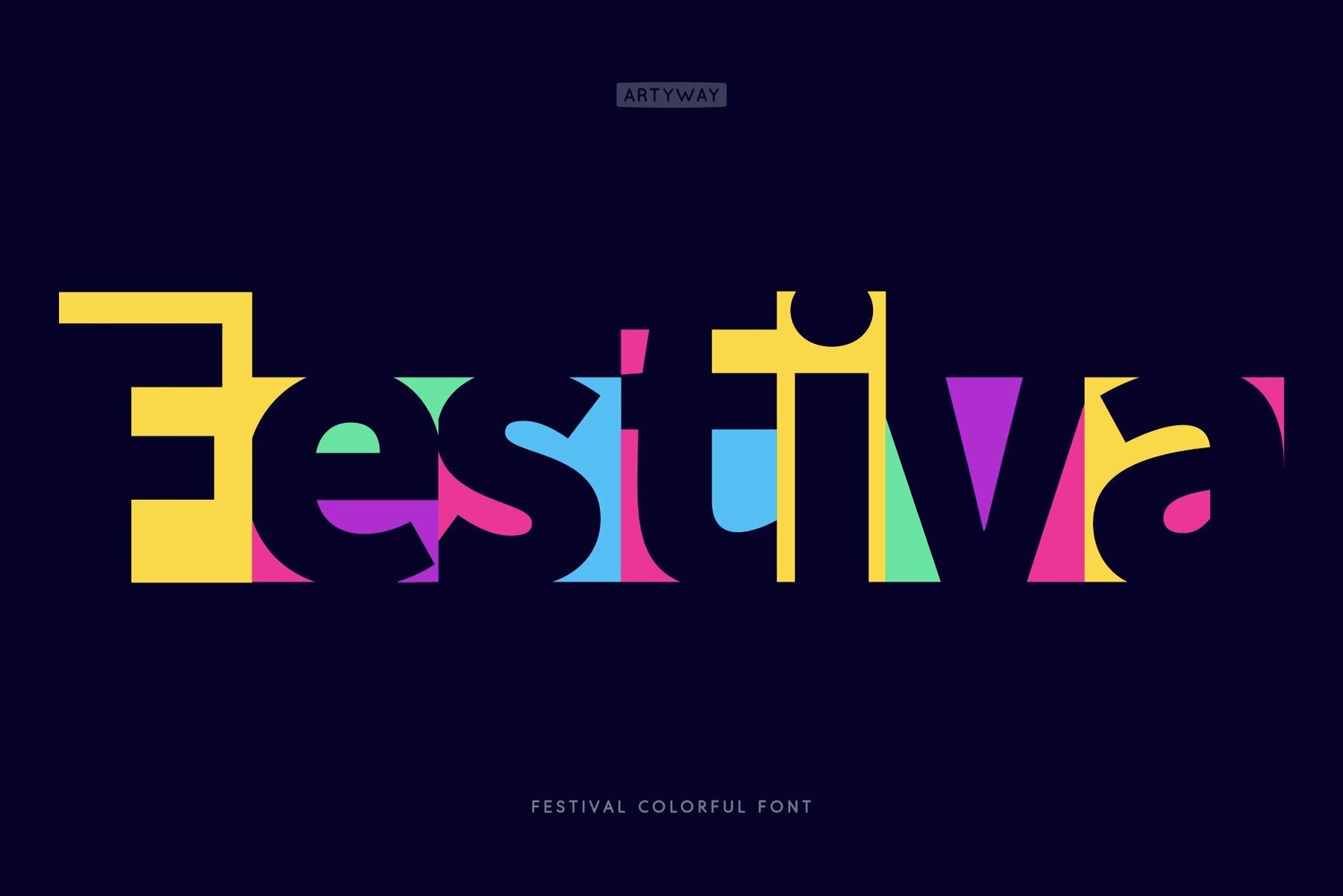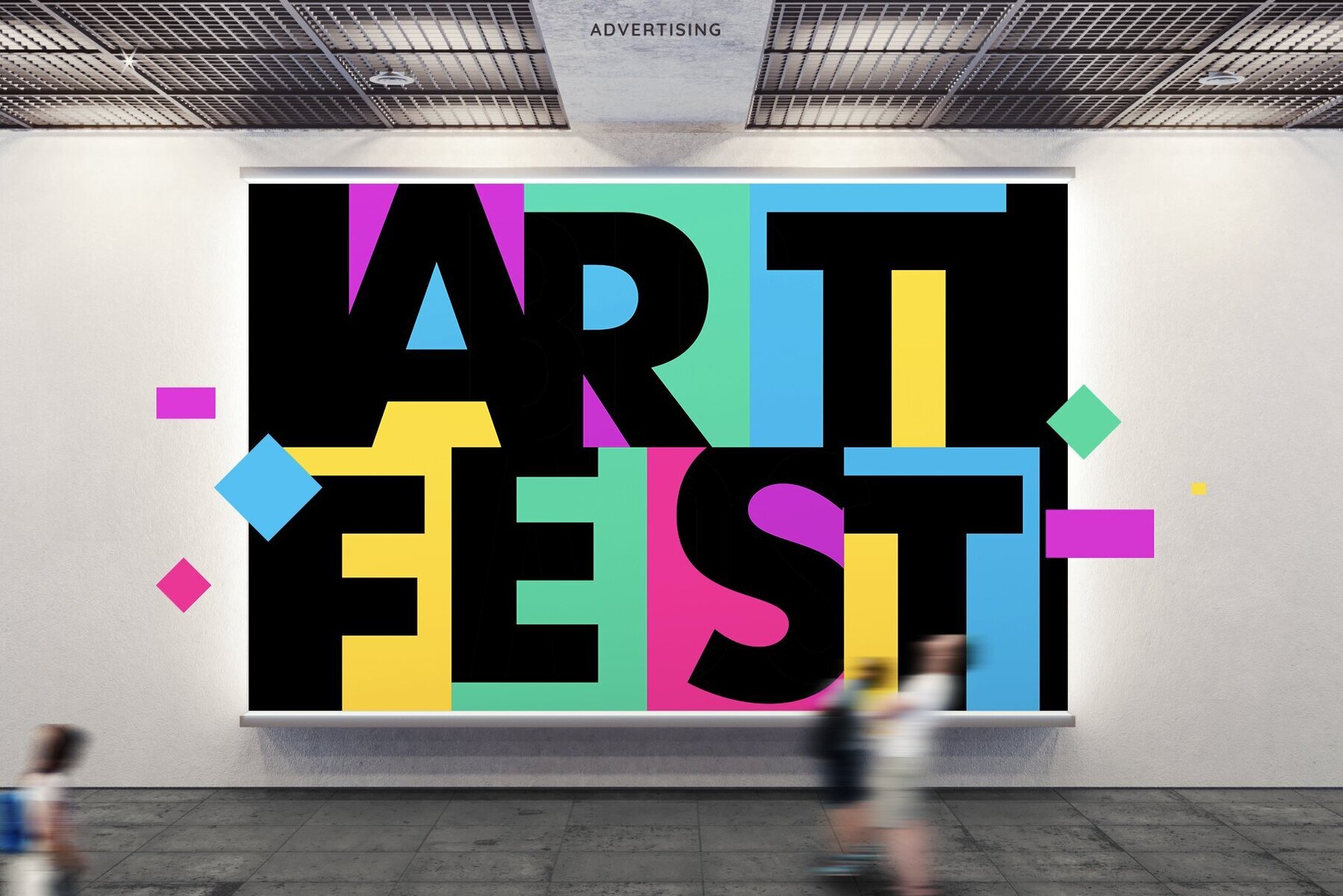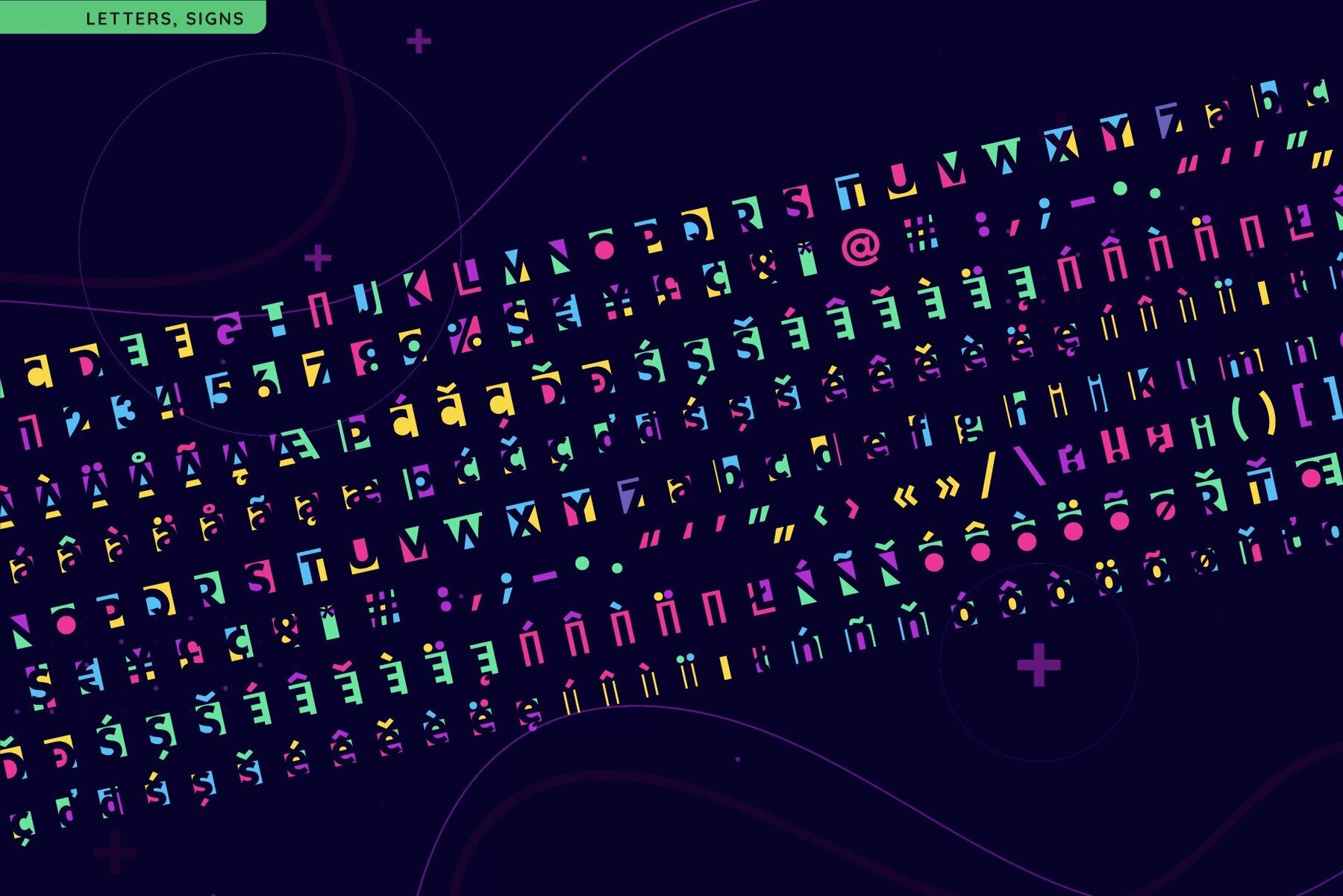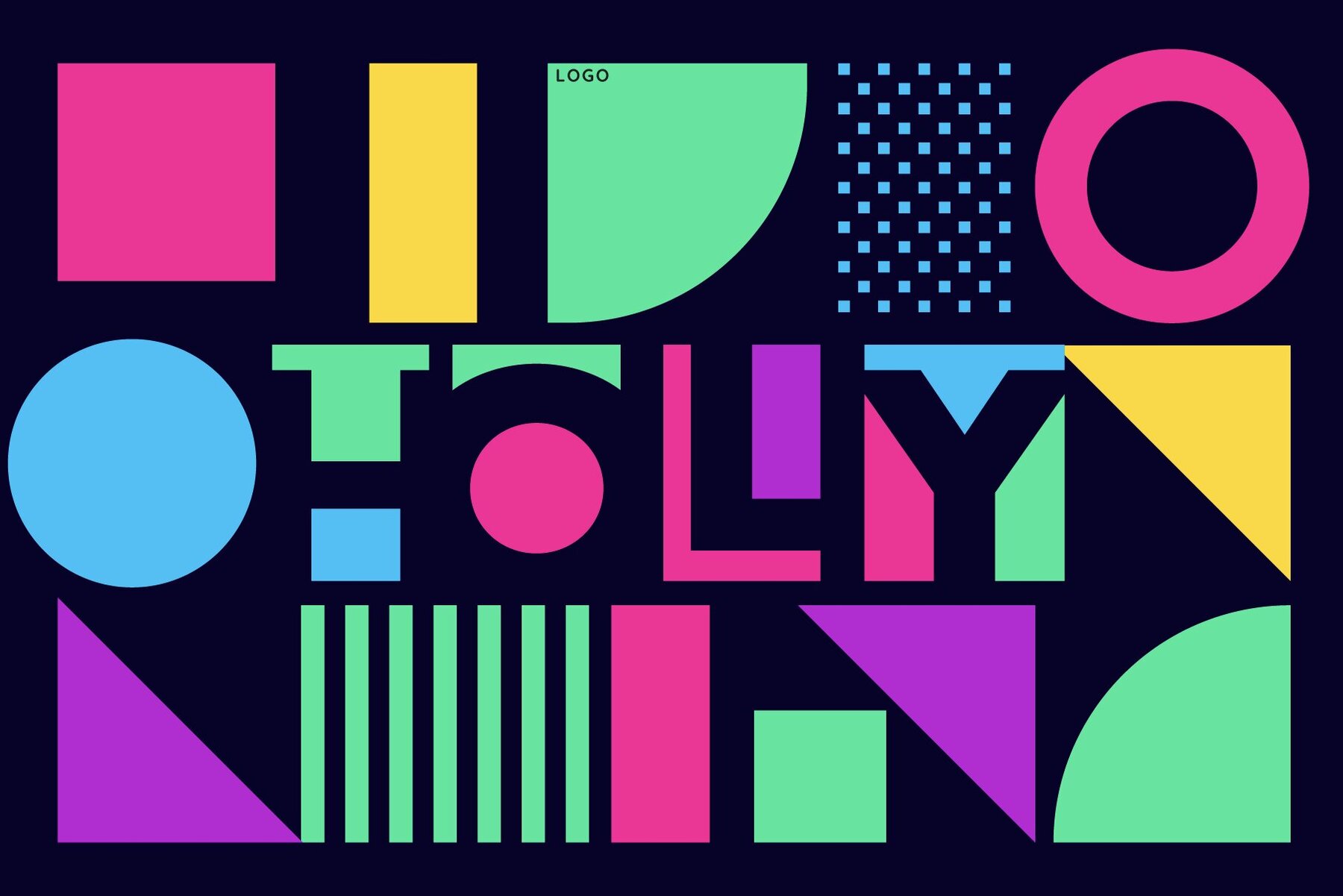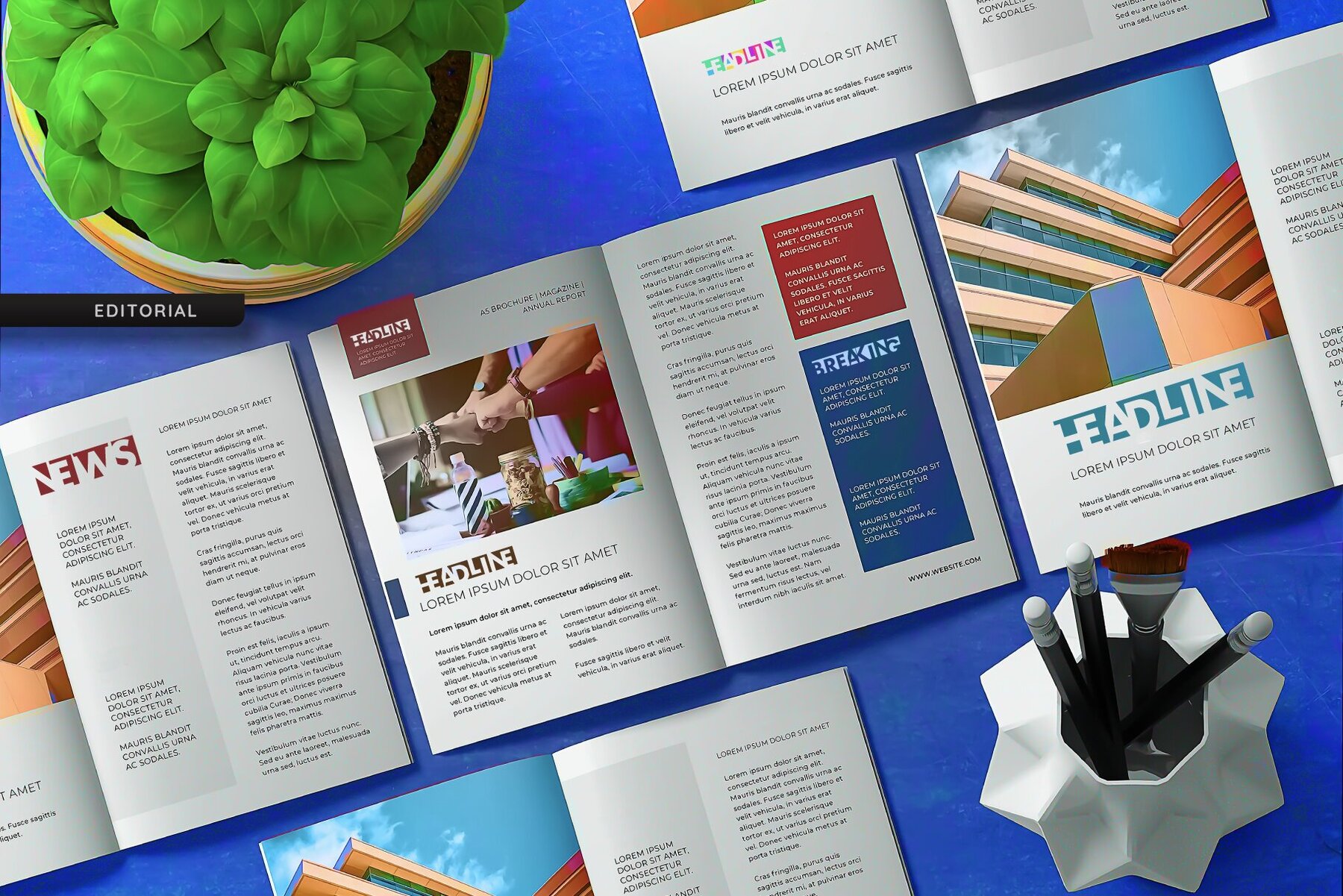
Festiva Font
Festiva
Festiva is a dynamic geometric display font characterized by its bold shapes and vibrant colors. Its design incorporates shaped negative spaces, enhancing its lively appearance and injecting a sense of playful energy. The font is inspired by the festive aesthetics often seen in Mexican and Indian cultural themes, making it an ideal choice for occasions that require a lively and engaging visual impact. Whether you're working on party invitations, event branding, or entertainment materials, this font brings an energetic and colorful flair to your design projects.
This font is perfect for creating eye-catching geometric logos, striking headlines with a festive touch, and expressive greeting cards, such as birthday invitations. It also lends itself well to educational or creative projects, where a bright and cheerful aesthetic is desired. The versatility of the font allows it to be used across various mediums, making it a valuable asset for designers looking to incorporate a vivid, celebratory vibe into their work.